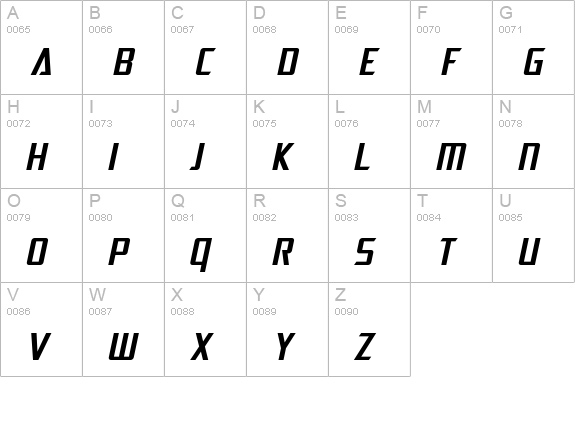
SF Electrotome Oblique Font Details
SF Electrotome Oblique is a distinctive, italic variant in the SF typeface family \xE2\x80\x94 well suited to design and typography projects.
SF Electrotome Oblique is a revolutionary font that brings a dynamic and futuristic aesthetic to your designs. With its sleek and sharp angles, this font exudes a sense of energy and innovation. It is perfect for projects that require a modern and tech-inspired look. The unique oblique style of SF Electrotome adds an extra layer of visual interest and adds a sense of movement to your typography. Each letter is carefully crafted to maintain a perfect balance between elegance and boldness, making it an ideal choice for headlines, titles, and logos. What sets SF Electrotome Oblique apart is not just its stunning design, but also its accessibility. It is freely available to download at FontsMarket.com, allowing designers and creatives from all walks of life to incorporate this striking font into their work. Whether you are a professional designer or a hobbyist, this font is a valuable addition to your font library. SF Electrotome Oblique is designed to be versatile and adaptable, making it suitable for various design projects. Whether you are working on a website, a poster, a magazine layout, or even a branding project, this font will add a touch of sophistication and modernity to your designs. Experience the power of SF Electrotome Oblique and unleash your creativity with this exceptional font. Its bold and futuristic design will elevate your designs and captivate your audience. Download SF Electrotome Oblique for free at FontsMarket.com and embark on a journey of creativity and innovation.